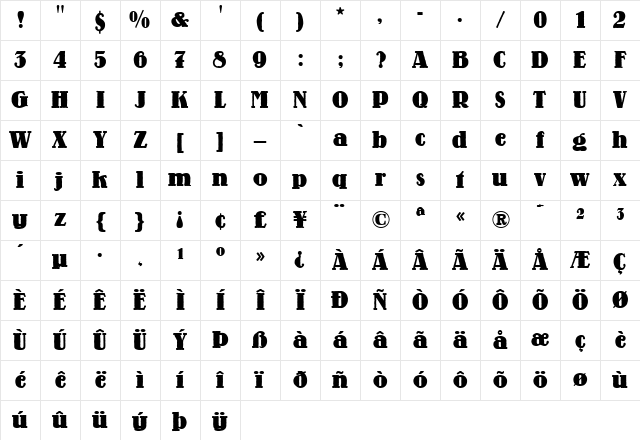
Lo-Type- Medium
Design Context for Lo-Type-
Lo-Type- is a composed and adaptable typeface that performs quietly and consistently across a wide range of design contexts.